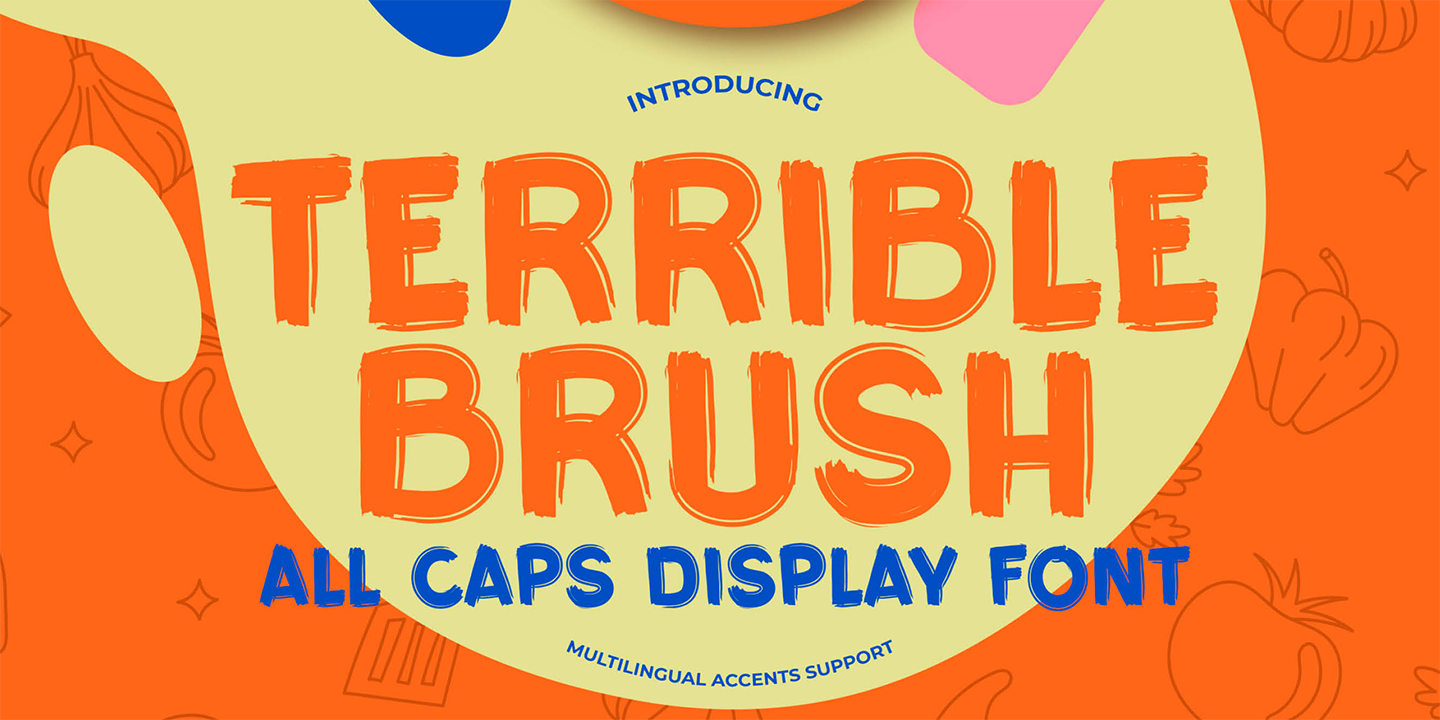
Terrible Brush Font is perfect for horror movie posters, grunge band merchandise, edgy street art projects, rebellious brand campaigns, underground music venues, rough skateboard graphics, raw artistic expressions, punk rock album covers, and any project requiring typography with intentionally raw brutality and authentically terrible brush aesthetics.
What makes Terrible Brush Font exciting is its authentic roughness that captures the raw honesty and unpolished beauty of deliberately imperfect brush strokes with letterforms that embrace the chaotic energy and rebellious spirit found in underground art movements and anti-establishment creative expression. This deliberately rough typeface embodies the punk rock philosophy of rejecting polished perfection in favor of genuine emotional expression with aggressive brush construction that celebrates the beauty of imperfection and the power of authentic artistic rebellion. The font's terrible character and brush sophistication make it perfect for brands that reject mainstream polish in favor of genuine authenticity, raw emotion, and the transformative power of embracing imperfection as artistic statement.
The Terrible Brush Font family includes regular weight with complete uppercase and lowercase alphabets, numerals, punctuation marks, and rough brush elements. The font maintains consistent raw authenticity throughout all letterforms while ensuring adequate readability for both rebellious headlines and gritty text applications in underground and alternative contexts.
Whether you're designing for underground music scenes, creating rebellious brand materials, or developing anti-establishment branding with rough brush aesthetics, Terrible Brush Font Free Download brings unmatched raw authenticity and rebellious sophistication to your projects. This exceptional typeface transforms ordinary text into powerful expressions of artistic rebellion that celebrate the beauty of imperfection and the honest emotion of unpolished creative expression. The font's terrible character makes it ideal for alternative brands, underground artists, and rebellious creative projects. Download this remarkable font today and bring the raw power of terrible brush authenticity to your design projects with genuine rebellious sophistication and deliberately imperfect artistic excellence.